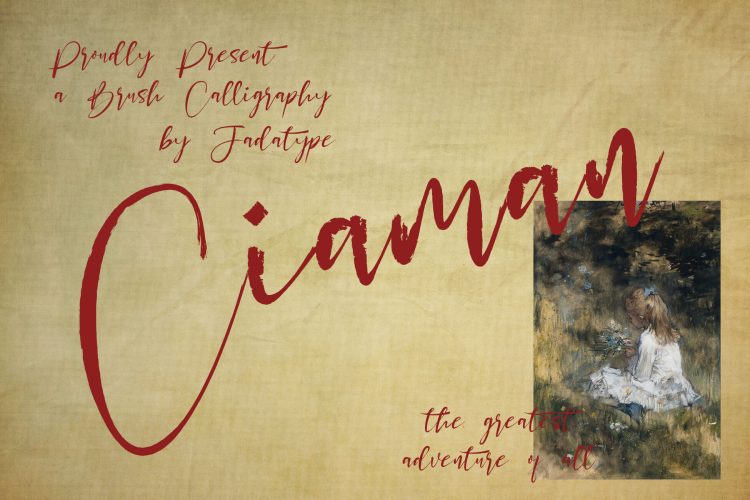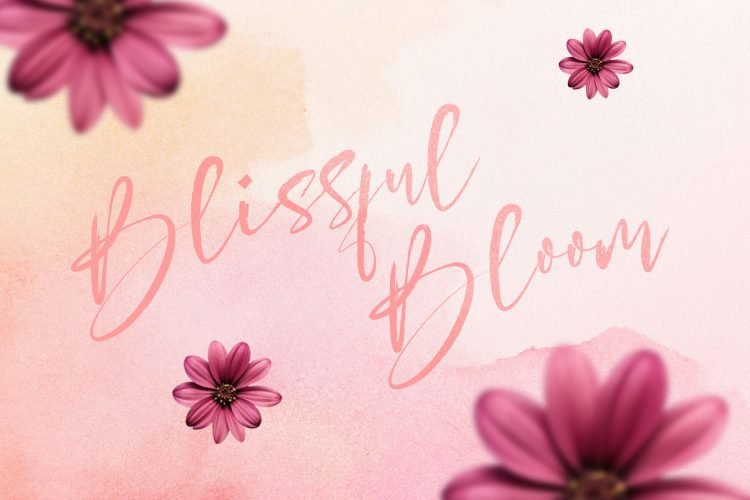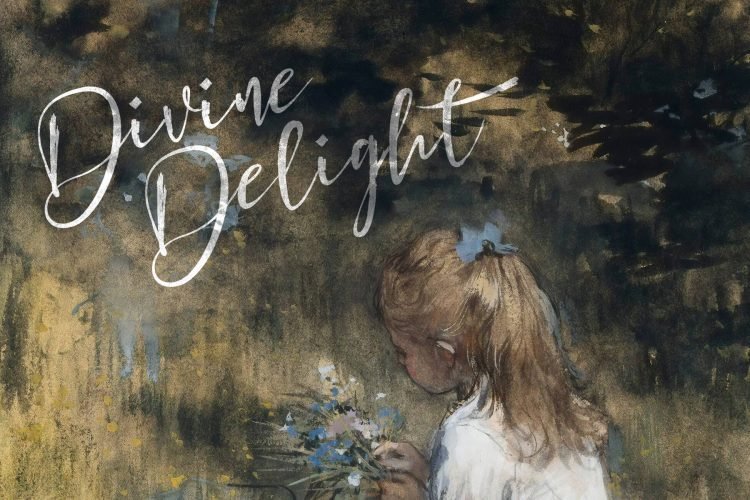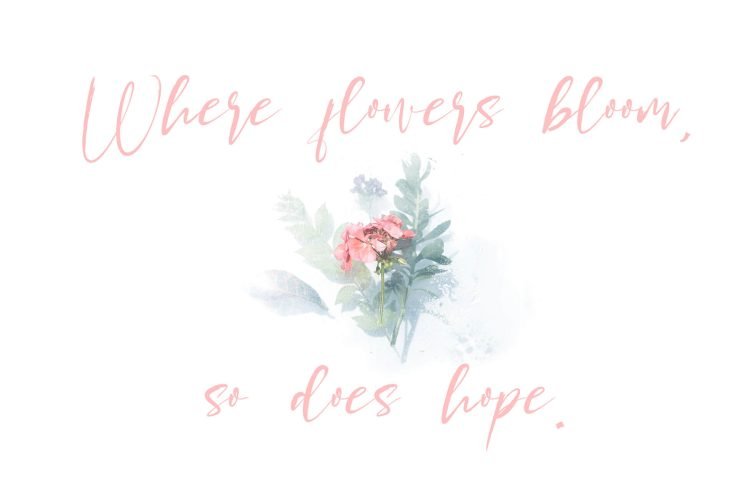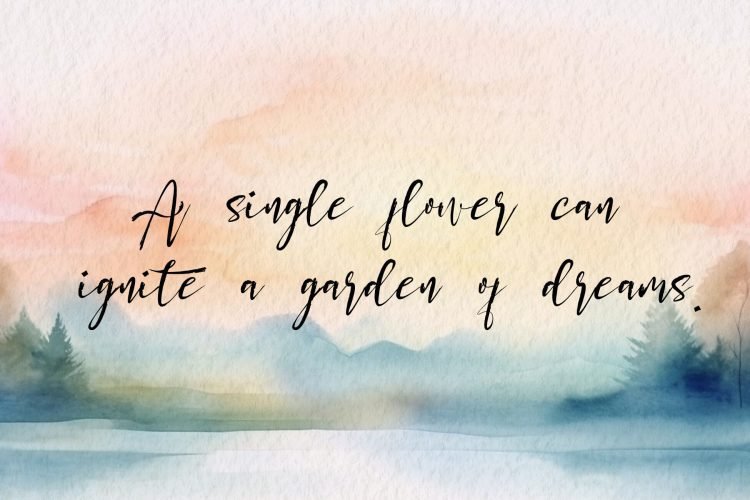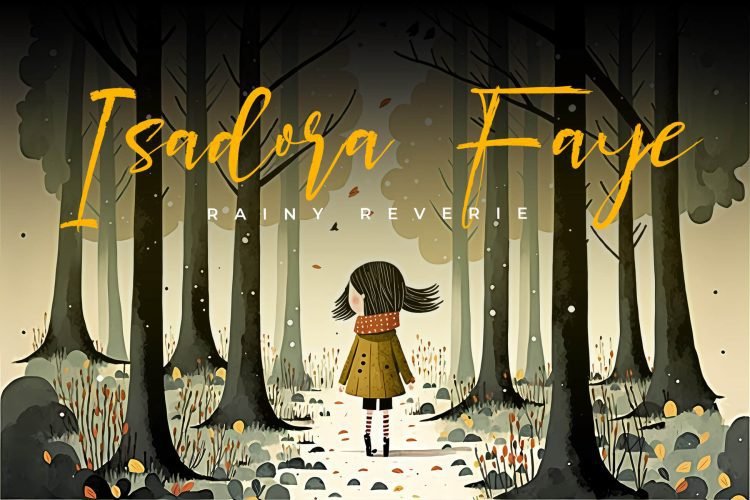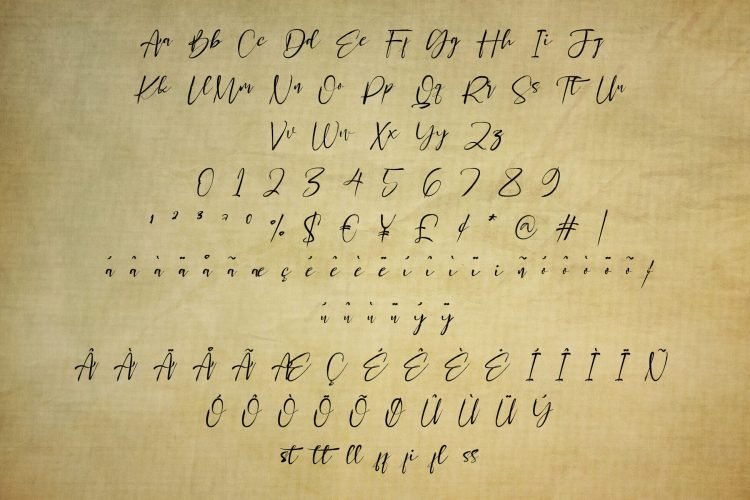
Brush Calligraphy Font
Ciaman
Ciaman is scriptt that comes with brush. Suitable for product, Branding, social media, logotype and so on. contains standard English letters, numbers, punctuation, and several accents that support multilingualism.
Ciaman – Brush Calligraphy Font